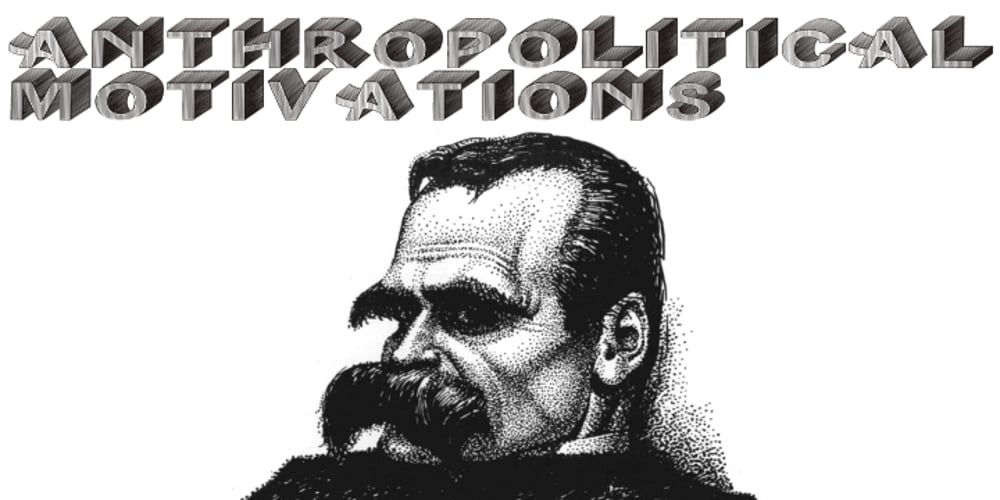
Das Riese
Das Riese Font Family was designed by Paulo W and published by Intellecta Design. Das Riese contains 1 styles and family package options. Das Riese, a type specimen by the most productive Brazilian type foundry, Intellecta Design, is a mix of victorian and art deco influences. A beautiful display type for tiling with uppercases only. It’s shadows and volumes refer to pre-modern age whereas its surface to last century 20’s. This heavy sans serif strokes characters have a particular appearance, a parallel line texture that reminds Bifur, typeface created in 1929 by A. M. Cassandre. The sideways absence of volume at some leaning letters right side in addition to the patchy darkness of shadows support its handmade design. A type full of historical references designed to small titles printed in big sizes. It’s impossible not to think about posters when you look at Das Riese strong face. – (source Slanted Magazine #8)